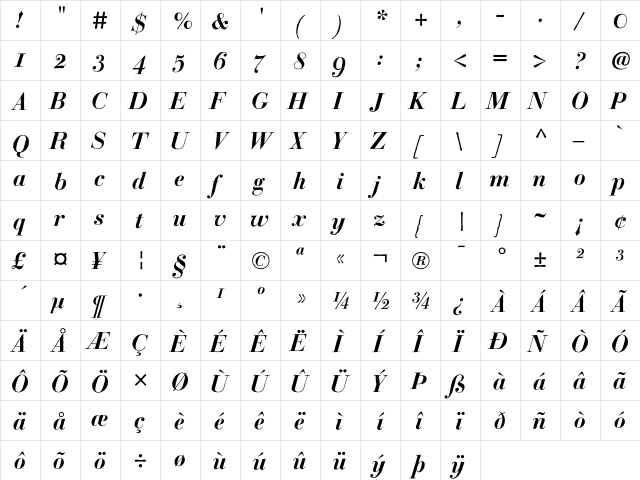
BodoniClassicHD Bold Italic Font Preview
Design Context for BodoniClassicHD Typeface
BodoniClassicHD has the warm character of retro typography — evoking diners, record sleeves, and the golden age of print advertising. The dynamic lean of this cut emphasises speed and emphasis in any layout. Its bold stroke weight gives it real presence on the page.
Perfect for vintage-inspired branding, retro packaging, nostalgia campaigns, and period-accurate editorial design.
Font Pairing: Combine BodoniClassicHD with a simple slab or neutral sans — period-accurate companions reinforce the vintage feel without competing for attention.
Pro Tip: Use BodoniClassicHD for headlines and pull quotes rather than body copy — its personality is best appreciated in short, focused bursts.